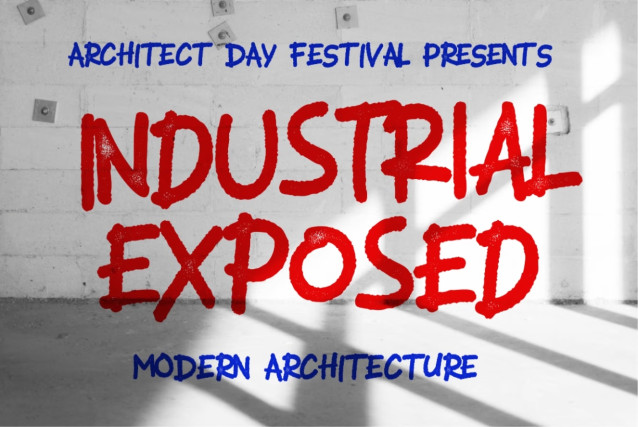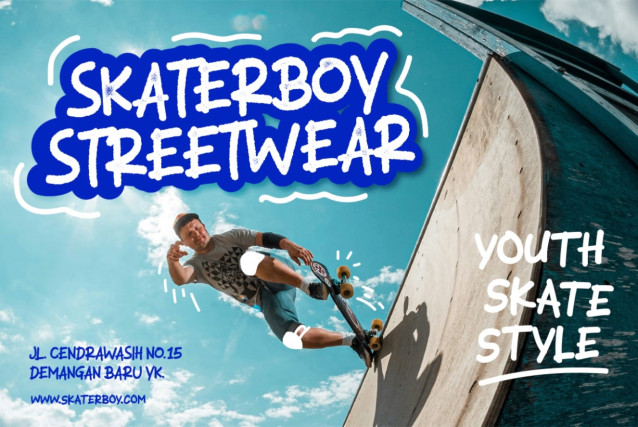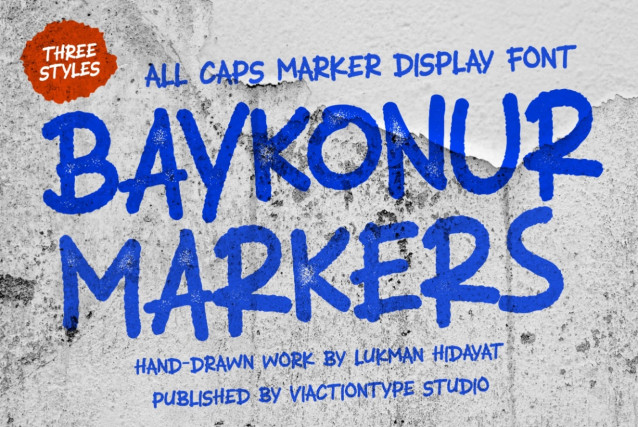
VT Baykonur – Markers Font
Baykonur Markers is a bold and expressive handwritten marker font inspired by the authentic look of real marker lettering drawn directly on paper. Its irregular strokes, natural imperfections, and spontaneous letterforms capture the raw personality of genuine handmade typography.
Instead of looking perfectly digital, Baykonur Markers keeps the organic imperfections of hand-drawn lettering — uneven shapes, natural stroke variations, and a casual marker texture that makes every word feel personal and authentic.
Baykonur Markers comes in 3 distinctive styles: Regular, Rough & Stamp, giving you plenty of creative possibilities, from clean handwritten lettering to distressed and textured marker effects.
Instead of looking perfectly digital, Baykonur Markers keeps the organic imperfections of hand-drawn lettering — uneven shapes, natural stroke variations, and a casual marker texture that makes every word feel personal and authentic.
Baykonur Markers comes in 3 distinctive styles: Regular, Rough & Stamp, giving you plenty of creative possibilities, from clean handwritten lettering to distressed and textured marker effects.
3 Styles Included
Regular — Natural handwritten marker strokes with an authentic, casual feel.
Rough — A more raw and distressed version with rough edges and stronger handmade character.
Stamp — A bold, textured style inspired by imperfect ink and vintage rubber stamp impressions.